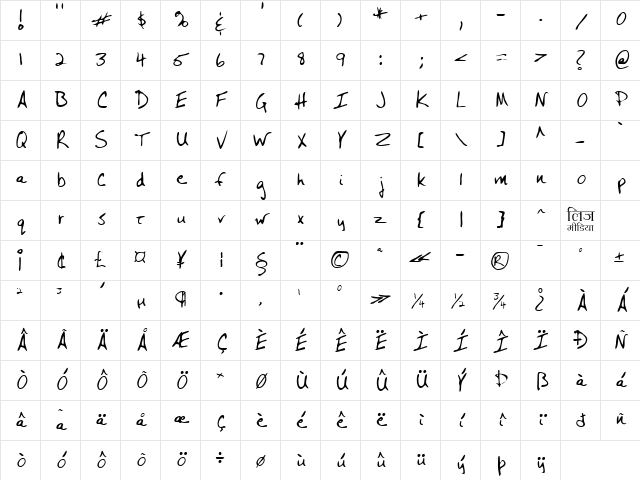
LEHN243 Regular Free Font
LEHN243 Regular
Design Context for LEHN243
LEHN243 is a composed and adaptable typeface that performs quietly and consistently across a wide range of design contexts.
Pro Tip: Use LEHN243 in both headline and body roles to test its range before committing to a single application.